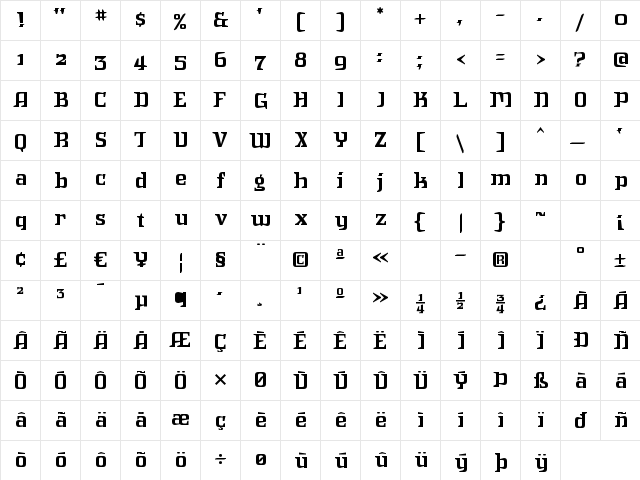
Intruder Alert Regular
| Foundry | Objets Dart |
| Designer | Darren Rigby |
Design Context for Intruder Alert Typeface
Intruder Alert takes a measured approach to typography — its balanced proportions and neutral character make it a reliable workhorse for both digital and print work.